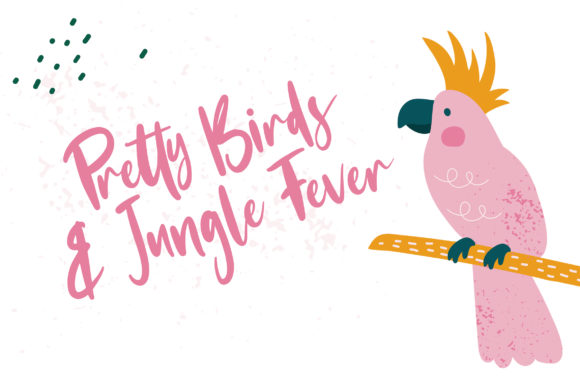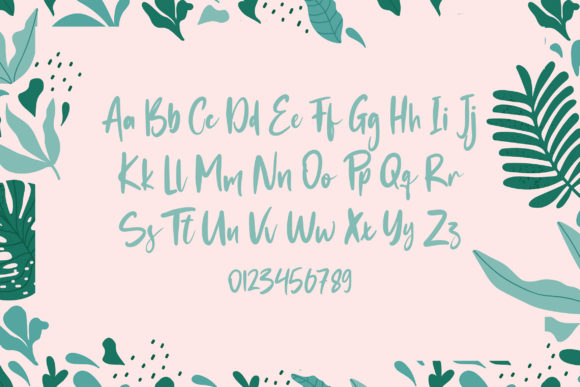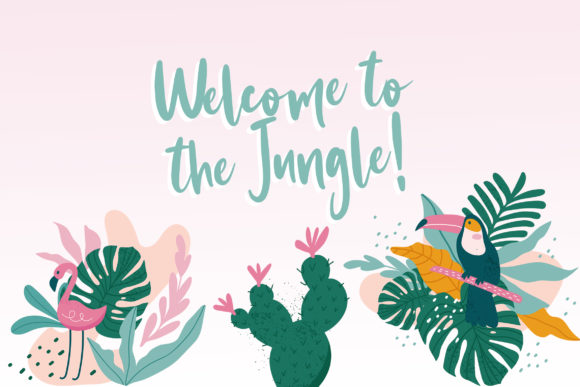
Better Wild Font: A Modern, Delicate, and Adaptable Paint-Brushed Beauty
Are you a designer or crafter looking for a unique and versatile font to elevate your creative projects? Look no further than Better Wild, a modern, delicate, and adaptable paint-brushed font that’s sure to capture your heart. With its authentic feel and charming aesthetic, Better Wild is the perfect choice for a wide range of applications, from lovely wedding invitations to beautiful stationery art, eye-catching social media posts, and cute greeting cards.
The Characteristics of Better Wild Font
Better Wild is a hand-painted font that boasts a delicate and modern look, making it perfect for designers and crafters who want to add a touch of elegance and sophistication to their projects. The font’s authentic feel is achieved through its subtle imperfections and organic texture, which give it a warm and inviting appearance. Whether you’re looking to create a romantic wedding invitation or a playful social media post, Better Wild is the perfect choice.
What Makes Better Wild Font So Versatile?
One of the things that sets Better Wild apart from other fonts is its incredible versatility. This adaptable font can be used in a wide range of contexts, from formal to informal, and can be easily paired with other fonts to create a unique and eye-catching look. Whether you’re designing a wedding invitation, a greeting card, or a social media post, Better Wild can be used to add a touch of personality and whimsy.
Ideas for Using Better Wild Font
So, how can you use Better Wild to elevate your creative projects? Here are a few ideas to get you started:
- Wedding Invitations: Use Better Wild to create beautiful and romantic wedding invitations that set the tone for a special day.
- Stationery Art: Add a touch of elegance and sophistication to your stationery art with Better Wild, perfect for journals, planners, and greeting cards.
- Social Media Posts: Use Better Wild to create eye-catching social media posts that stand out from the crowd and add a touch of personality to your brand.
- Greeting Cards: Create cute and playful greeting cards for special occasions, such as birthdays, holidays, and anniversaries.
Tips for Getting the Most Out of Better Wild Font
To get the most out of Better Wild, here are a few tips to keep in mind:
- Experiment with Pairings: Don’t be afraid to experiment with pairing Better Wild with other fonts to create a unique and eye-catching look.
- Play with Size and Color: Better Wild looks great in a variety of sizes and colors, so don’t be afraid to experiment to find the perfect combination for your project.
- Add Texture and Patterns: Consider adding texture and patterns to your design to give it an extra layer of depth and interest.
In conclusion, Better Wild is a modern, delicate, and adaptable paint-brushed font that’s perfect for designers and crafters looking to add a touch of elegance and sophistication to their creative projects. With its authentic feel and charming aesthetic, Better Wild is sure to capture your heart and inspire your creativity. Whether you’re designing a wedding invitation, a greeting card, or a social media post, Better Wild is the perfect choice.